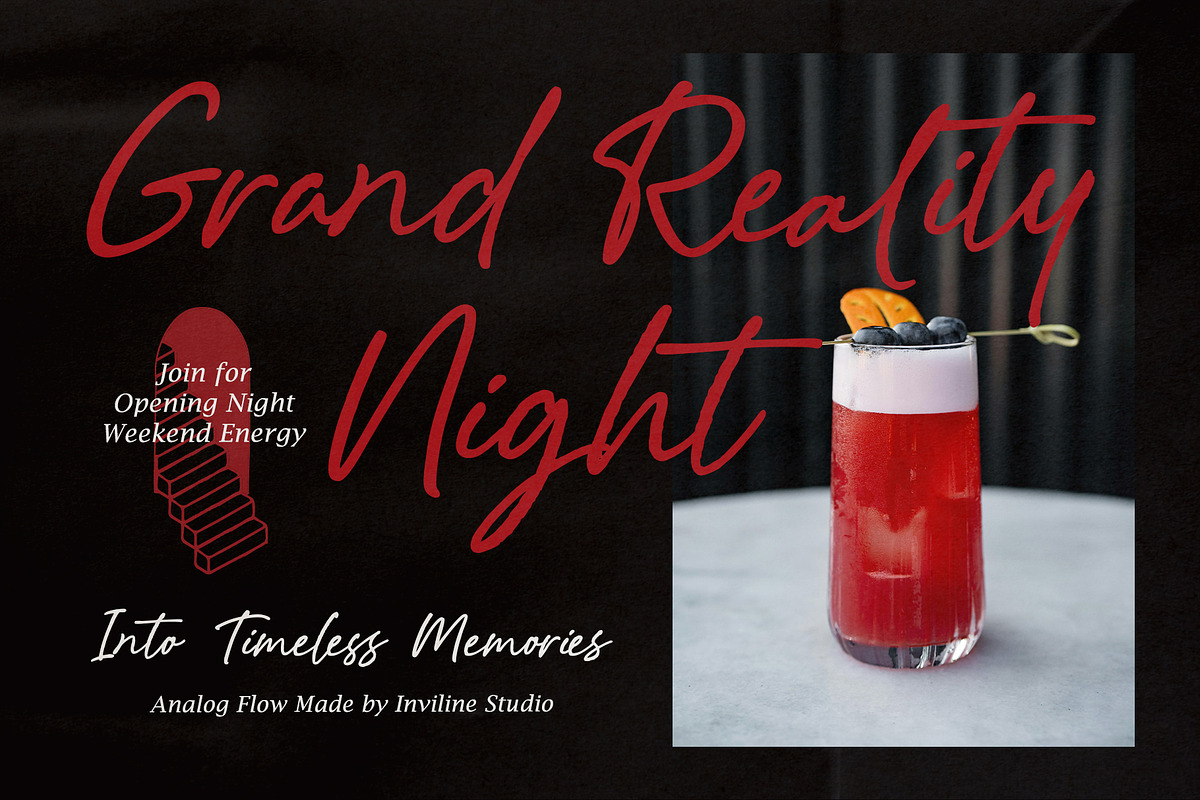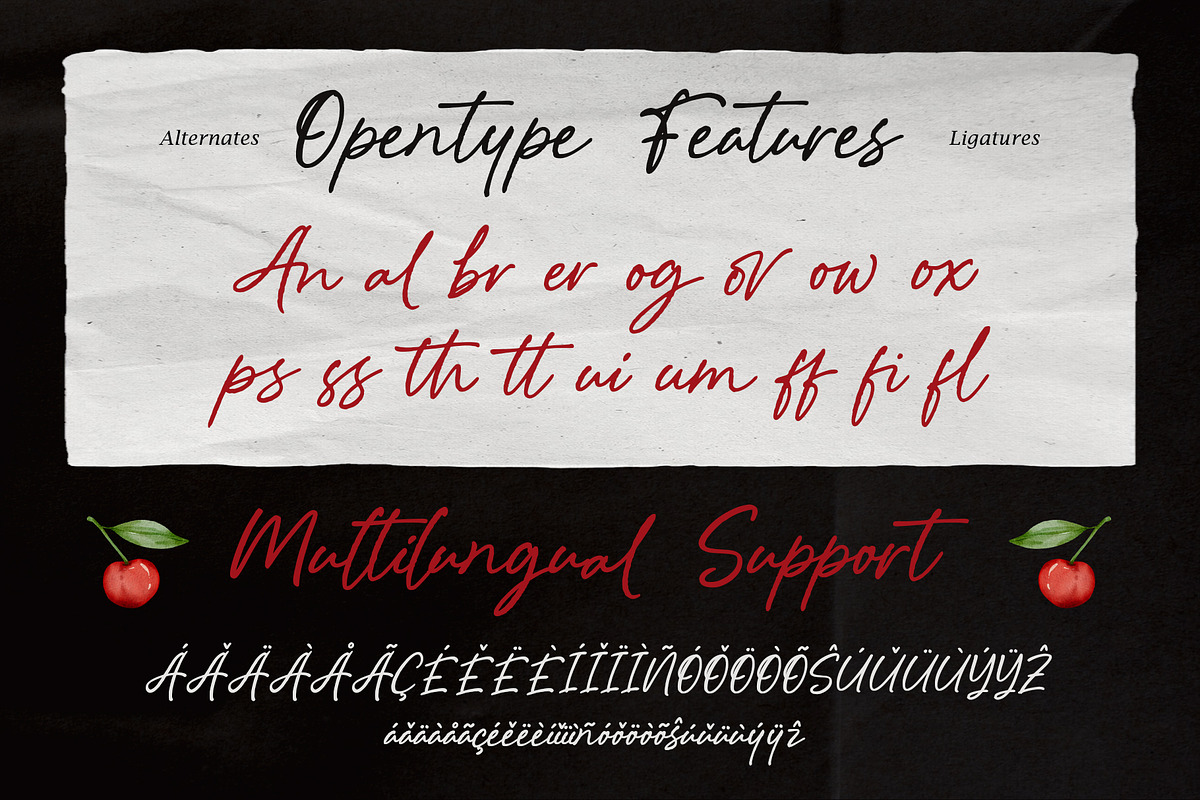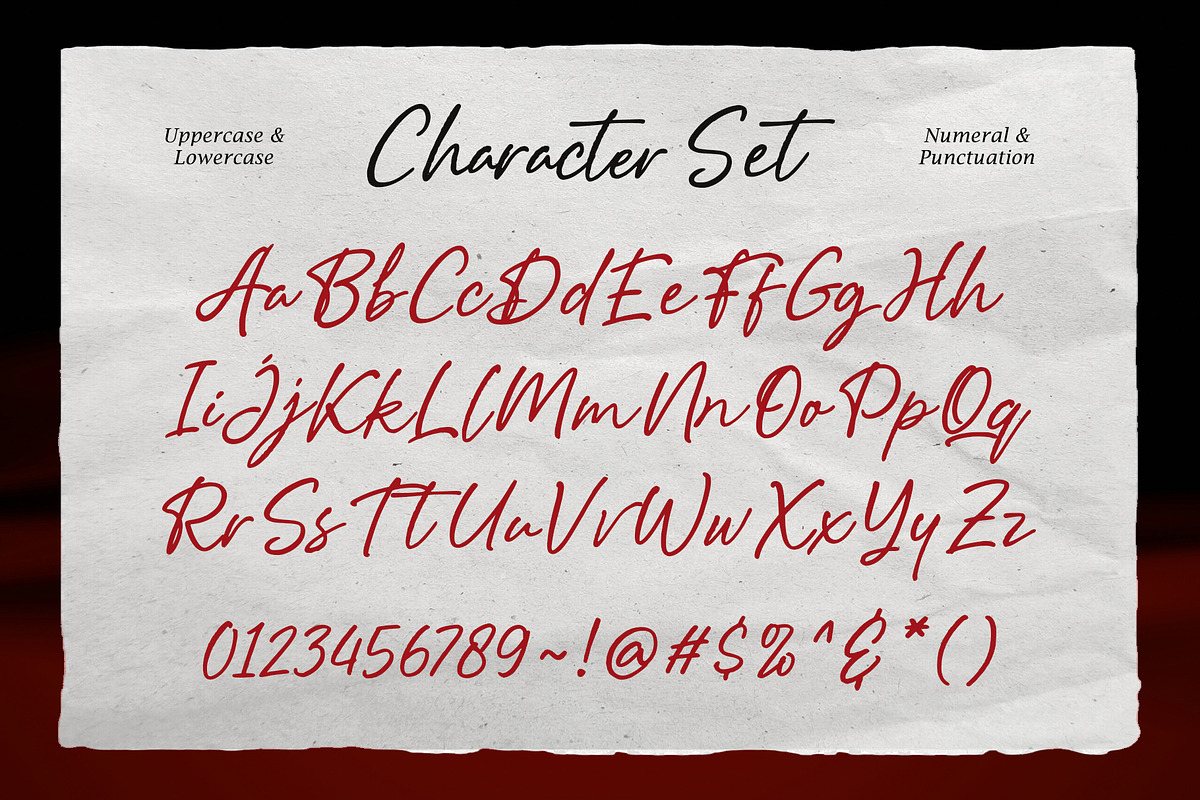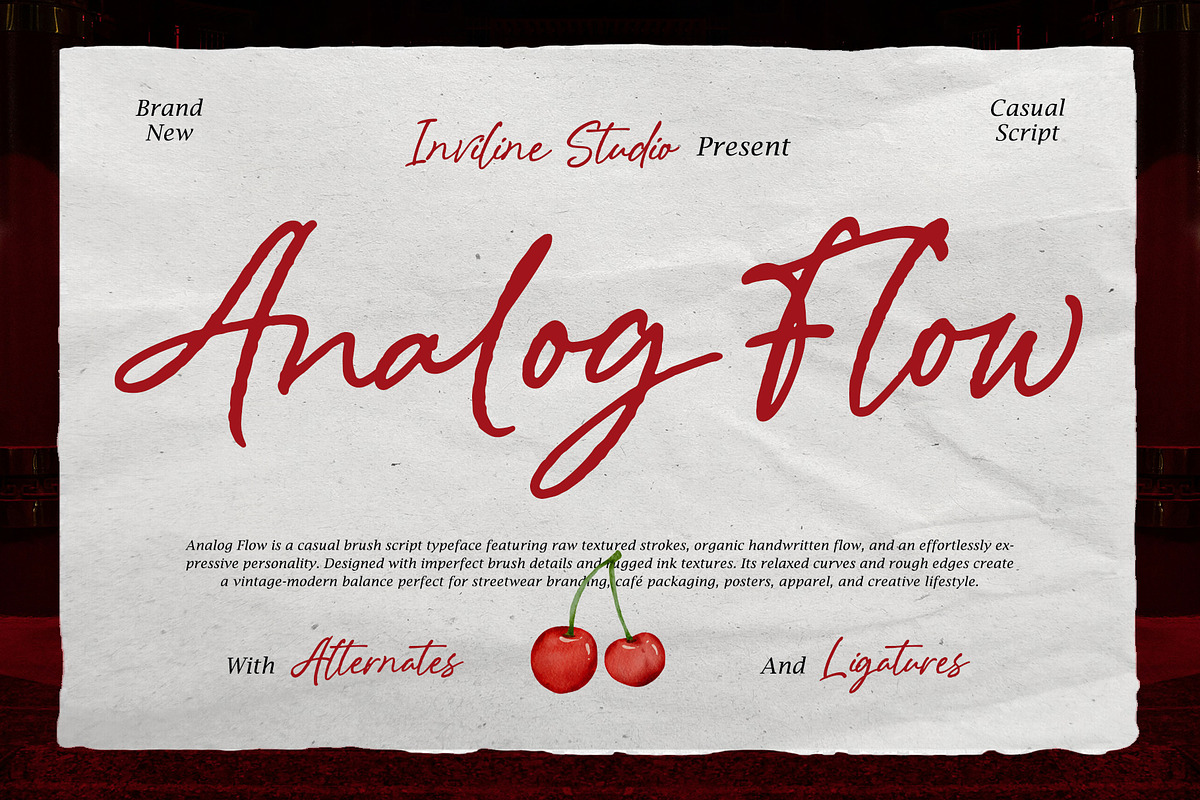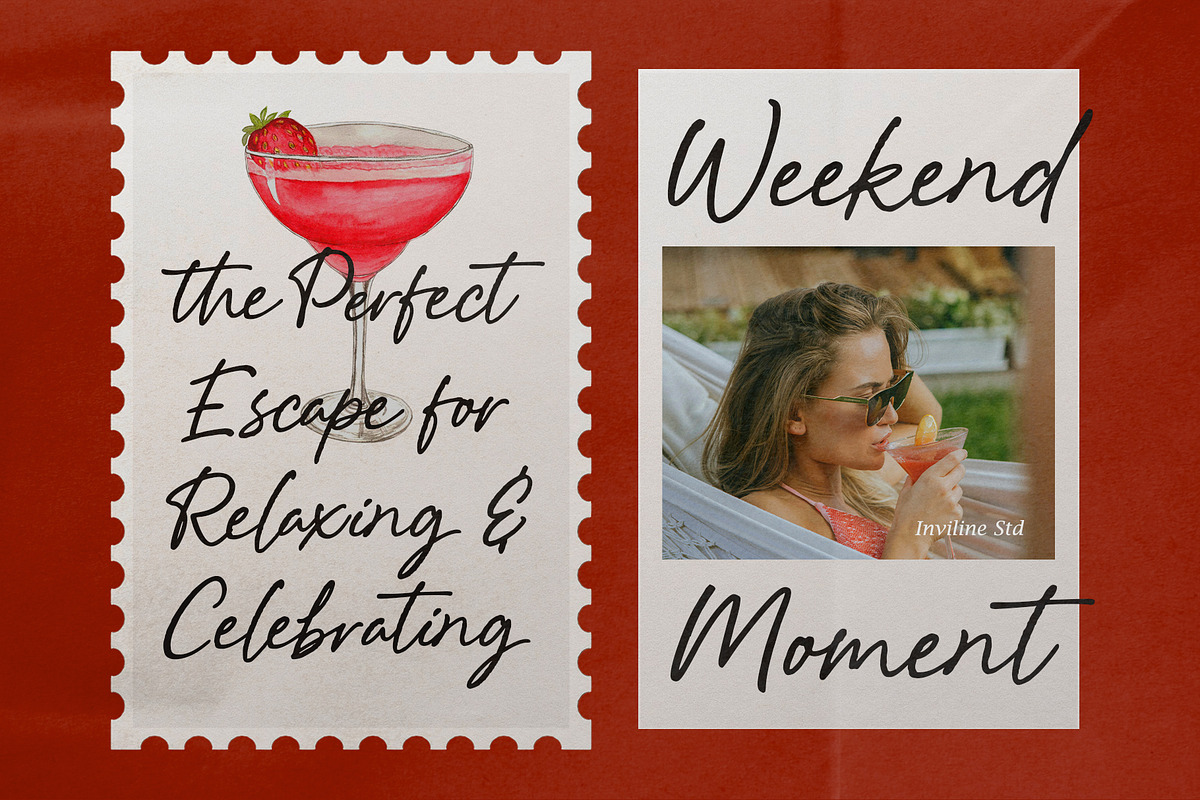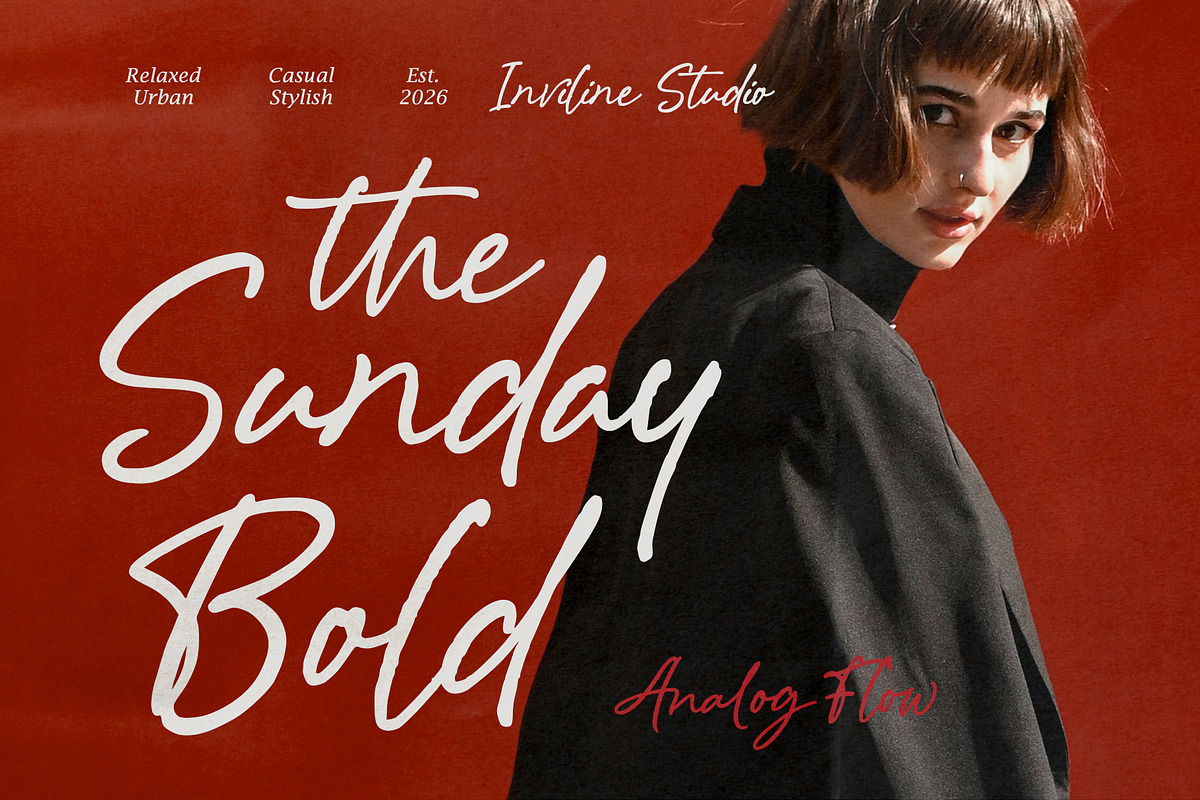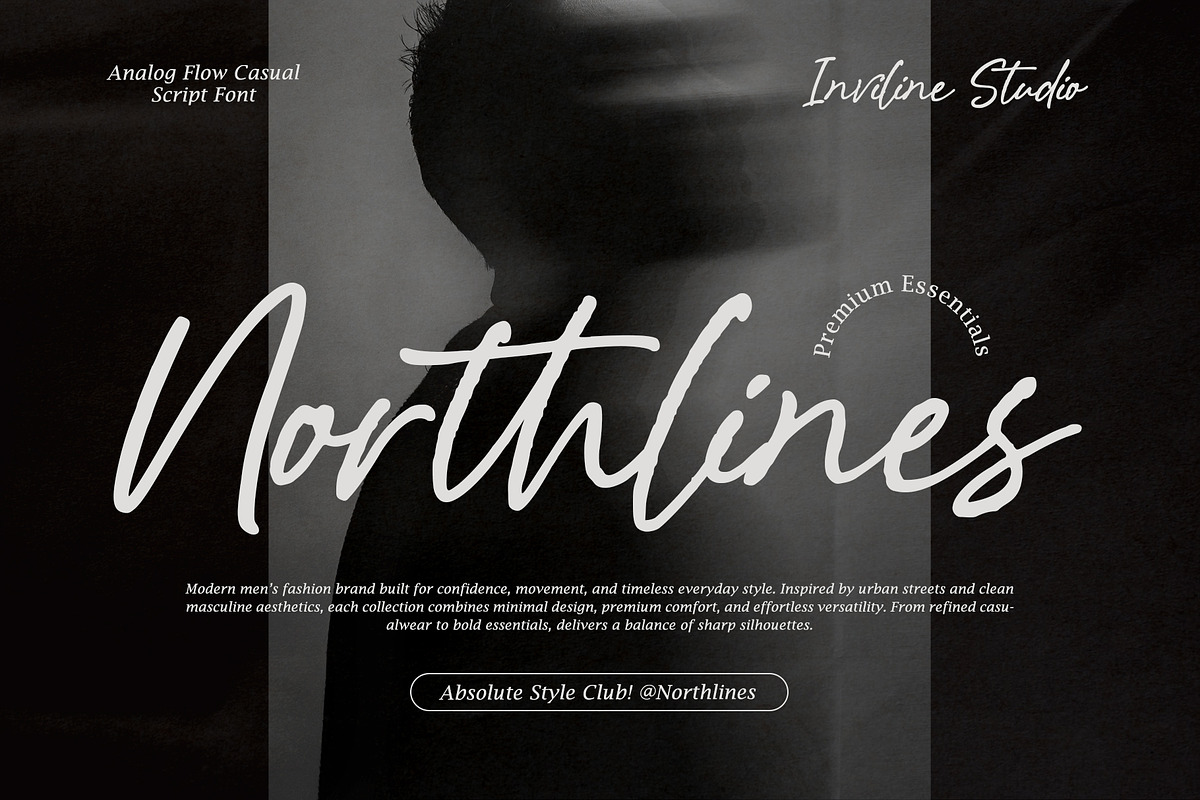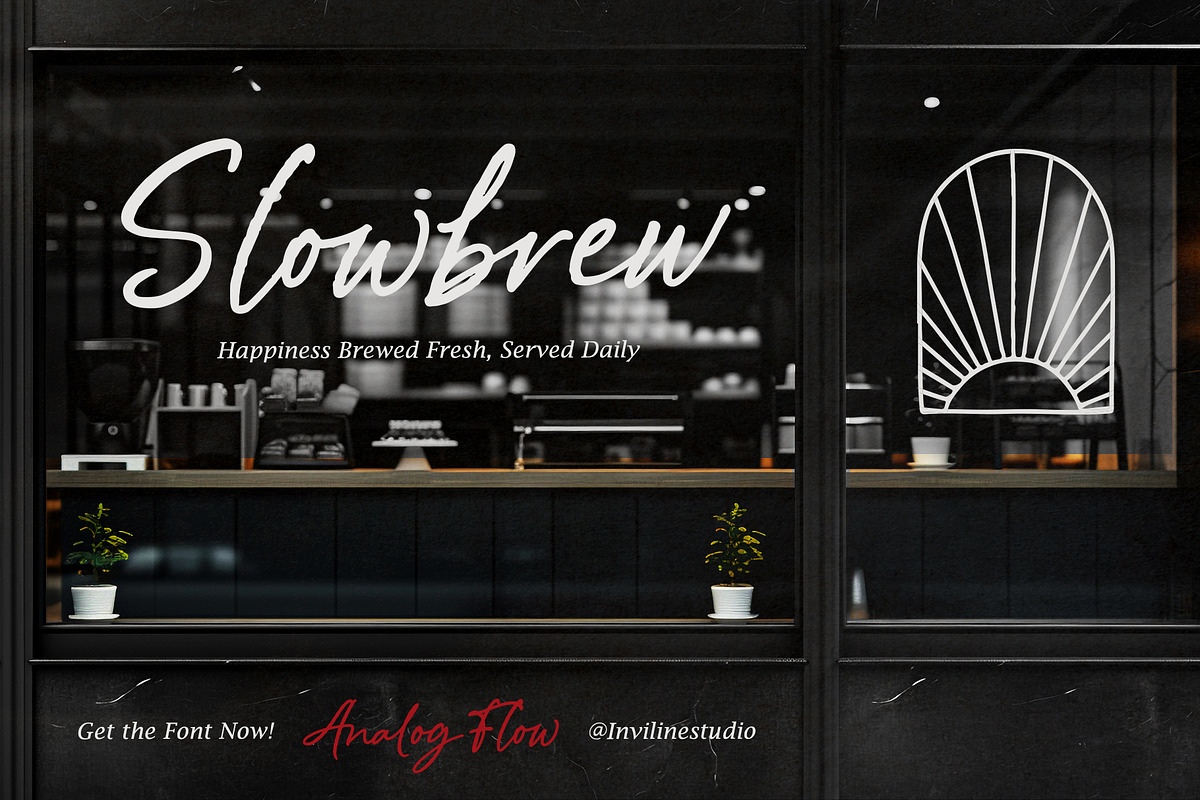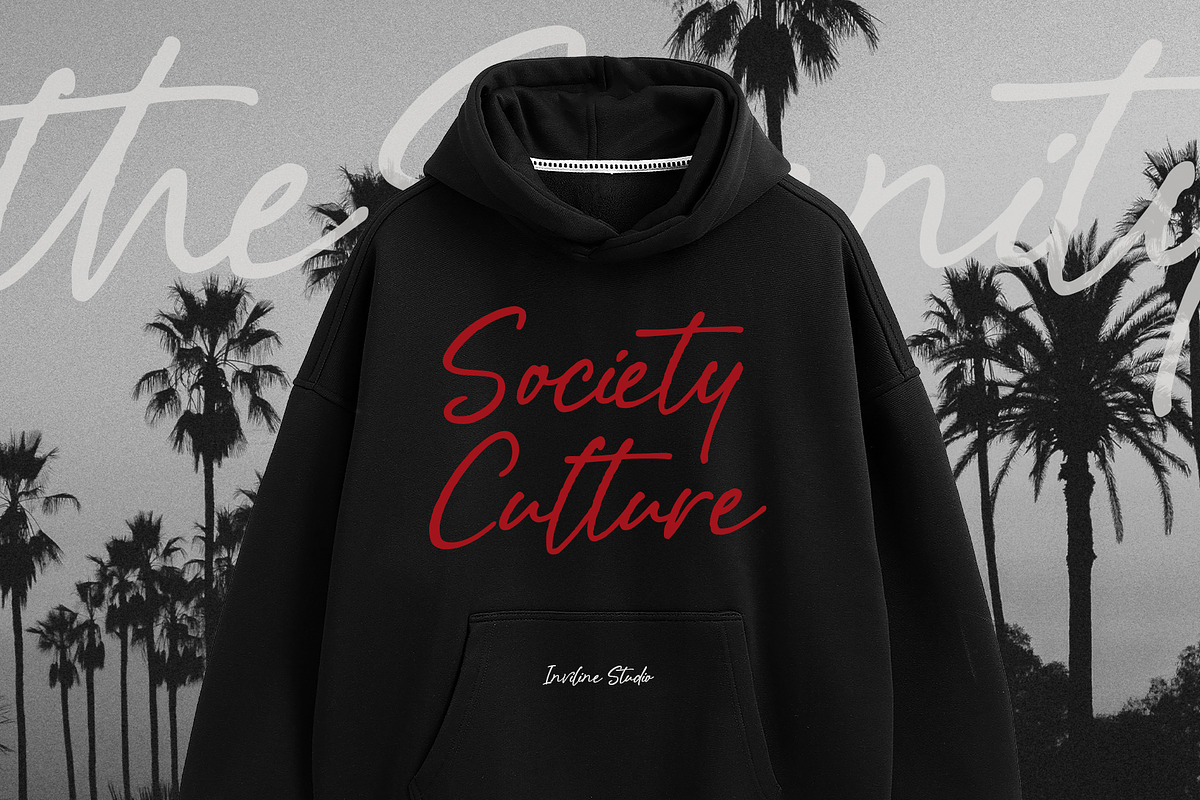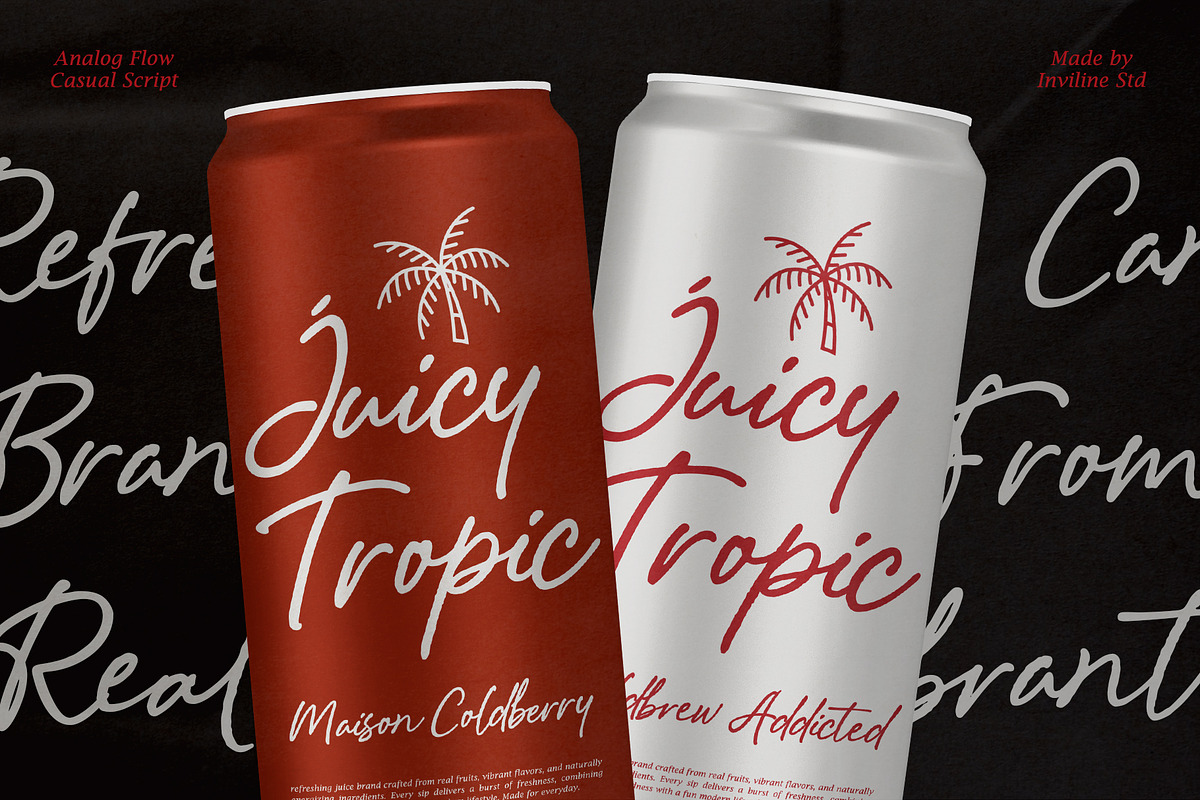
Analog Flow - Casual Brush Script
An expressive, textured brush script featuring raw ink strokes. Perfect for streetwear, apparel, and modern cafe branding.
Analog Flow is an effortlessly expressive casual brush script designed by Inviline Studio. Created with imperfect brush details and rugged ink textures, it strikes the perfect balance between vintage rawness and modern urban energy. It captures the highly sought-after "Imperfectionist Hand" trend, allowing your designs to feel authentically human.
Raw Textured Strokes: Highly detailed brush imperfections preserved in every letterform.
Organic Handwritten Flow: Includes custom ligatures and alternates to keep the text looking naturally hand-painted.
High-Impact Display: Bold and legible, designed to command attention on physical merchandise and digital screens.
Ideal For / Use Cases
Streetwear & Apparel: T-shirt graphics, fashion lookbooks, and bold brand identities.
Food & Beverage: Refreshing juice labels, organic cafe menus, and craft coffee packaging.
Lifestyle Marketing: Creative posters, festival flyers, and engaging social media quotes.